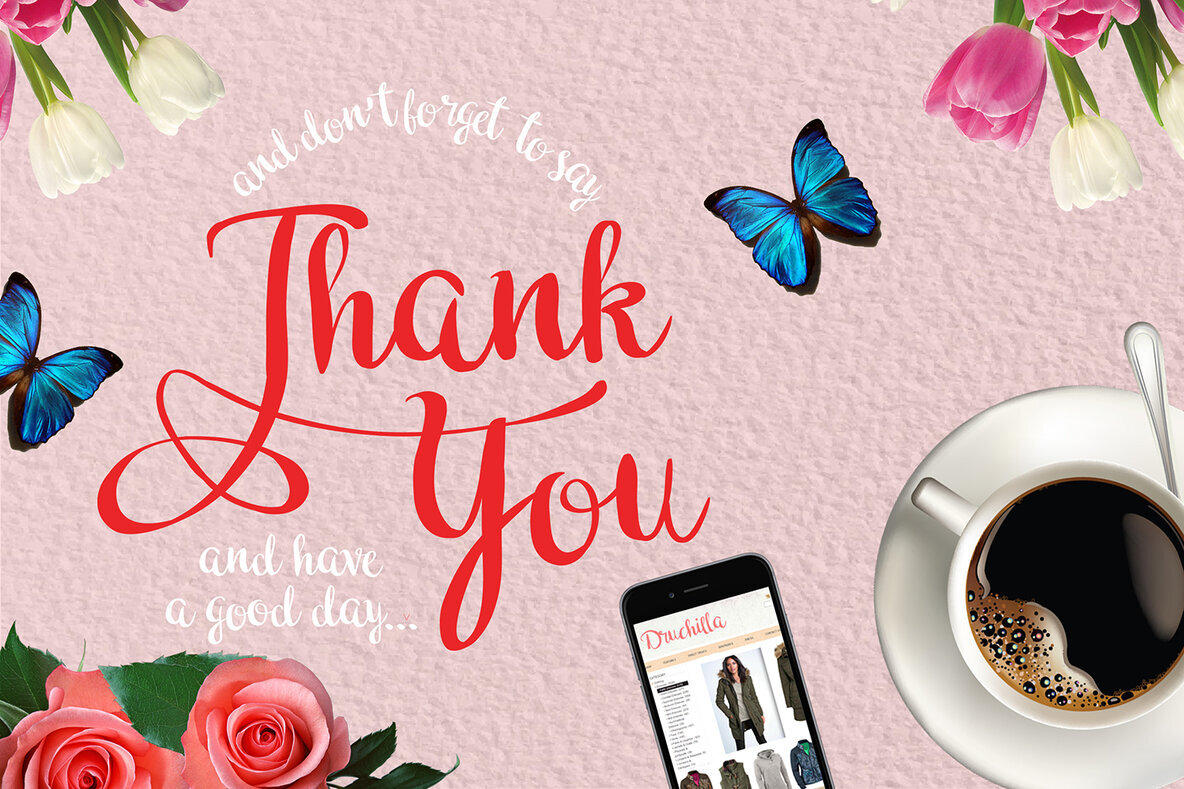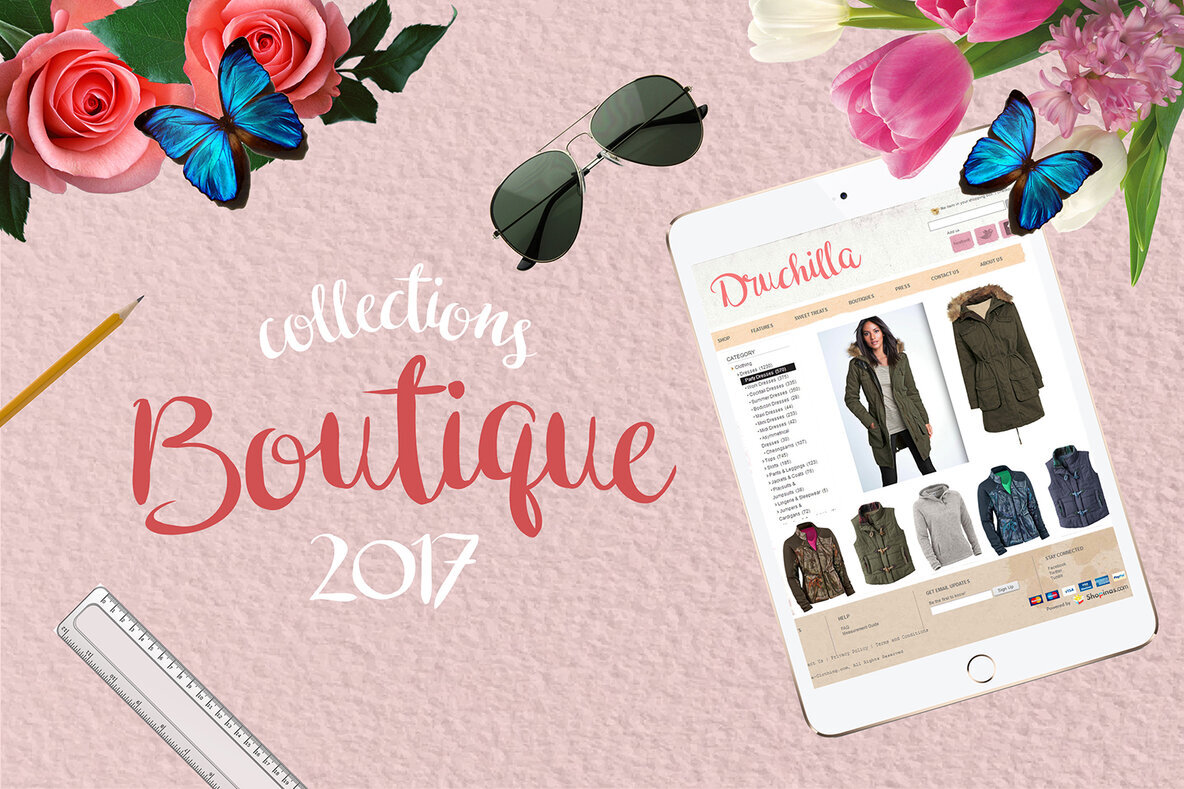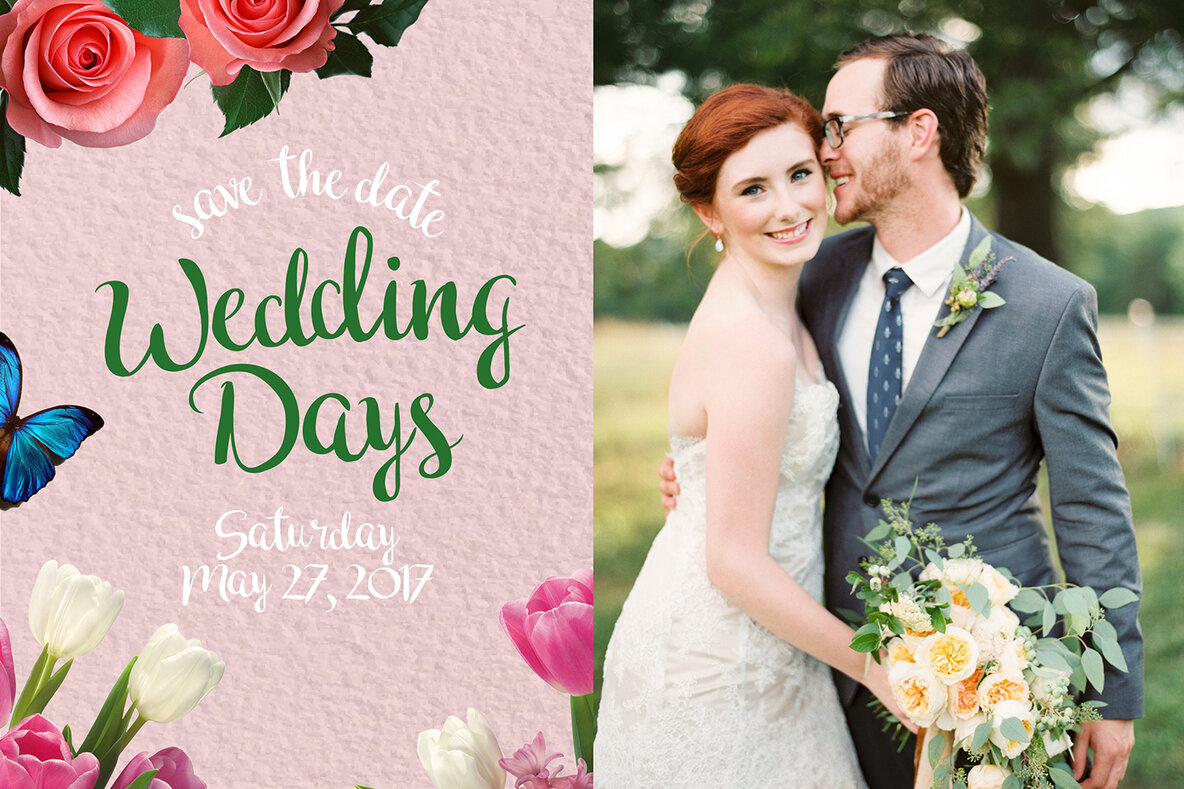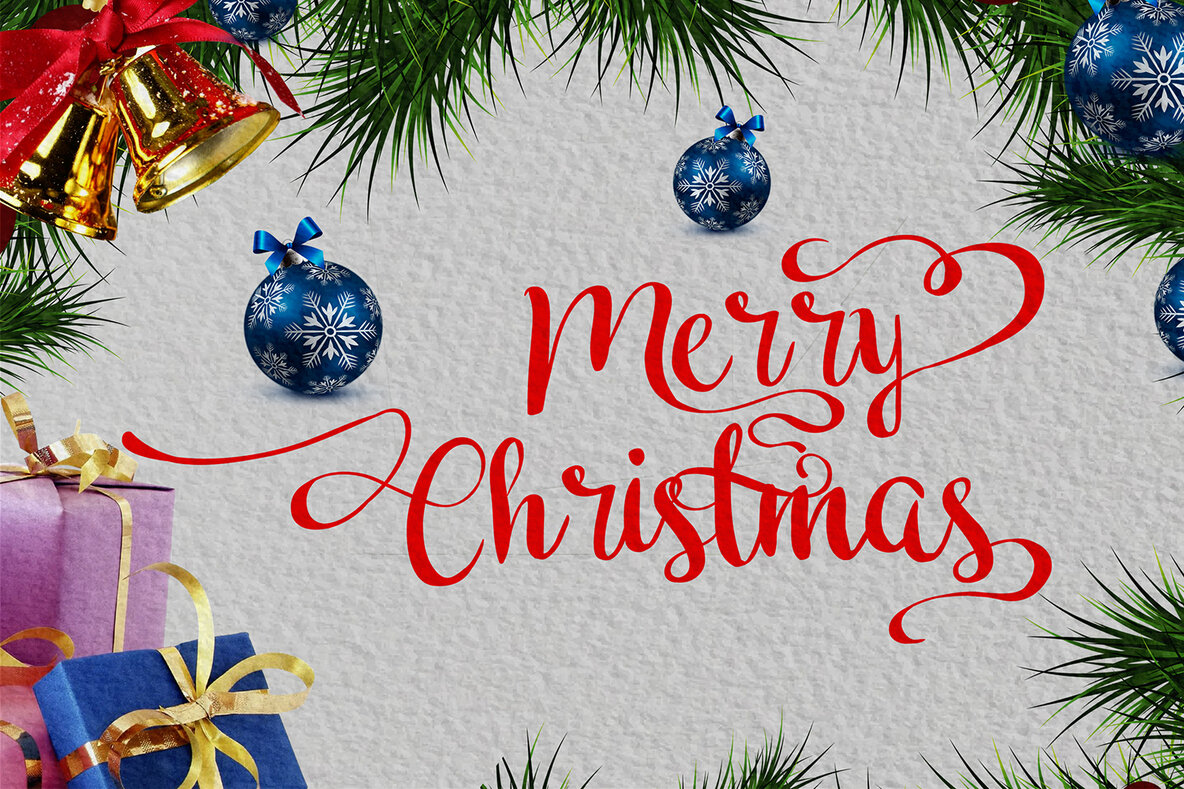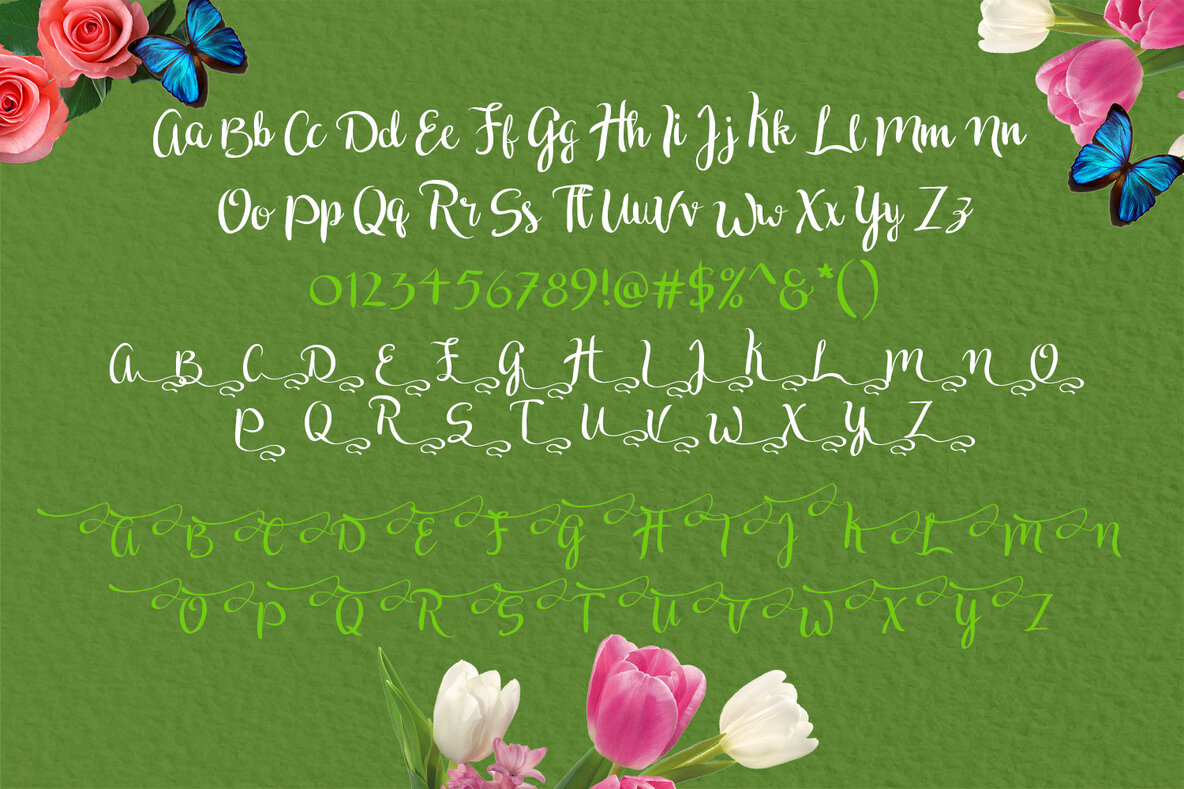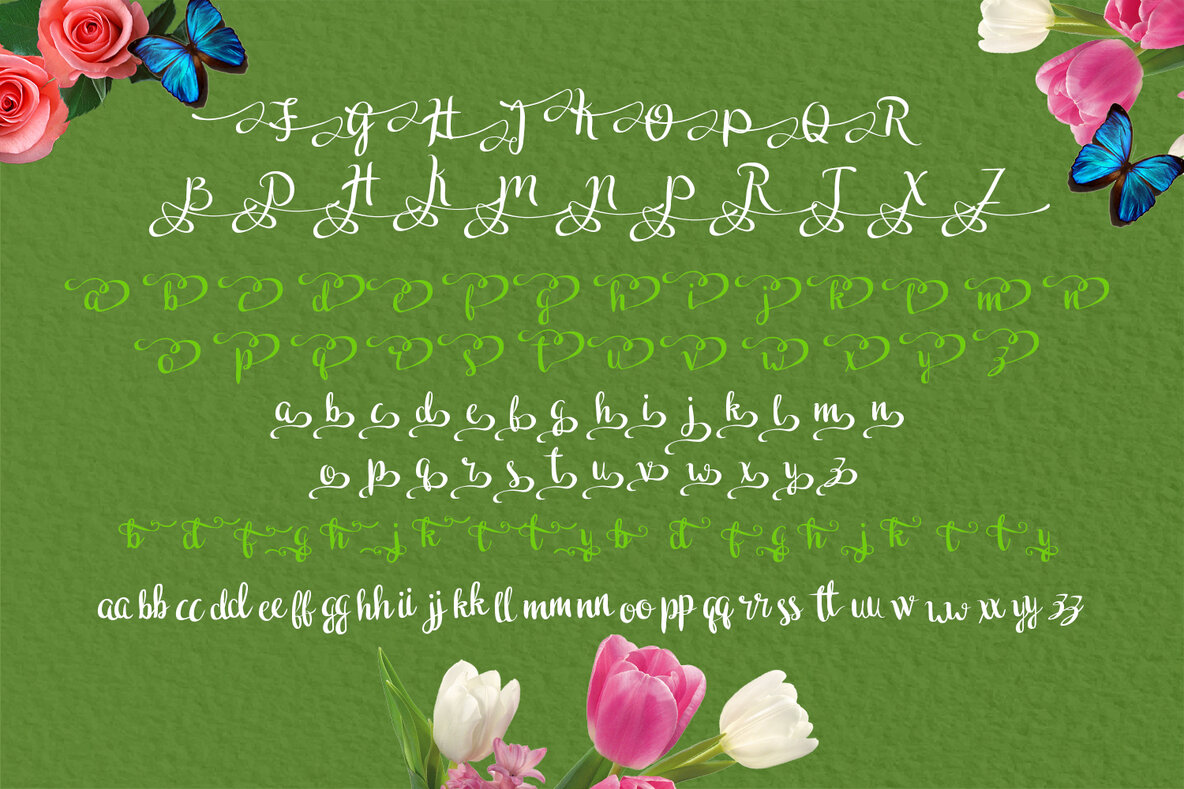
Druchilla Font
Druchilla Regular
Druchilla offers a beautifully crafted handwriting font that captures an authentic and dynamic feel. With over 400 glyphs at your disposal, Druchilla provides endless possibilities for creative expression. Its natural, fluid strokes make it ideal for a broad array of design applications.Druchilla: Expressive Handwriting Font for Versatile Design